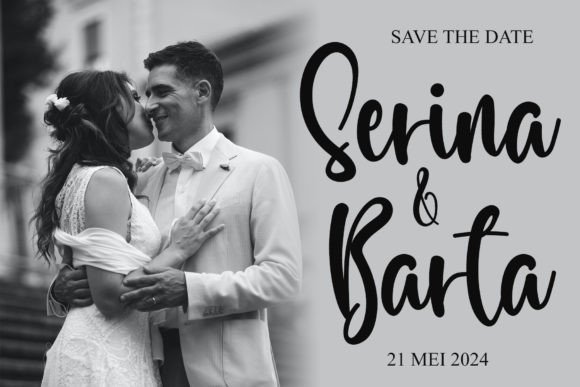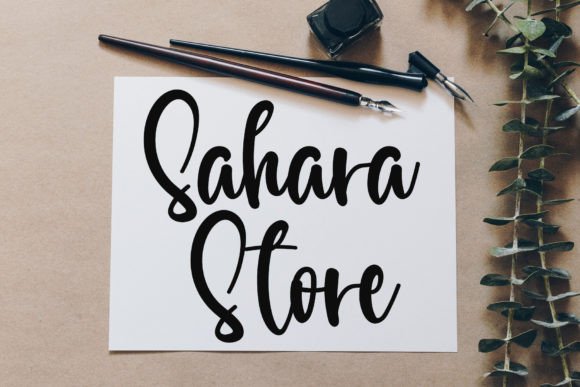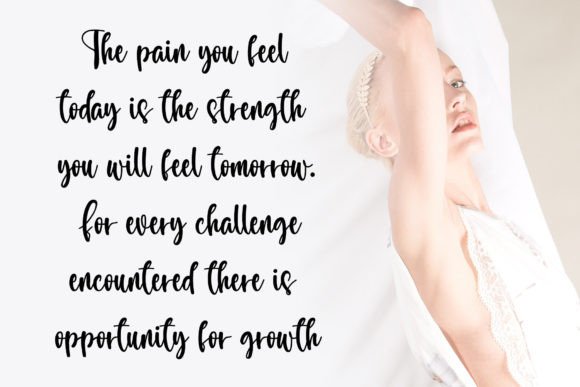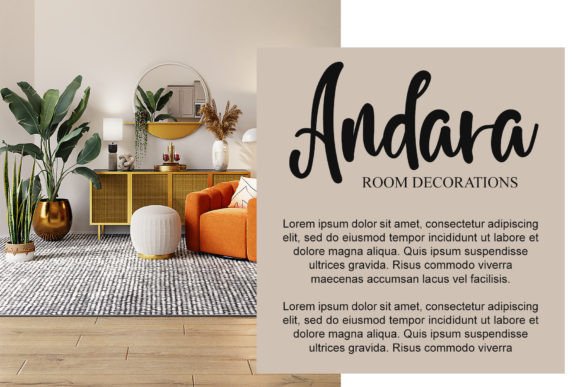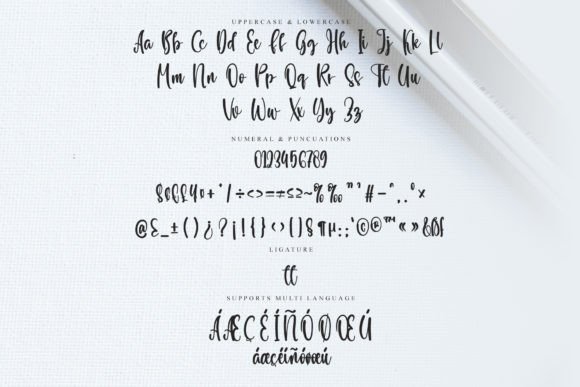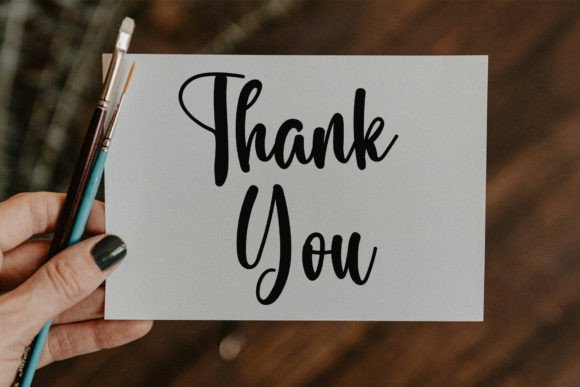
Where Creativity Meets Style: The Magic of Blending Font
Have you ever stared at a blank canvas, your mind racing with ideas, yet struggling to bring them to life? The moment when creativity strikes is always a thrill, and for designers, it’s a chance to infuse their imagination into a project. For those seeking the perfect blend of elegance and whimsy, the Blending Font is a game-changer.
This stylish and modern handwritten font is designed to add a touch of happiness to any creation, from greeting cards to headlines, branding, and packaging. With its PUA encoding, accessing the amazing glyphs and ligatures is a breeze, making it a valuable tool for designers looking to elevate their work.
Key Features of Blending Font
- Unique Blend Effect: The font features a unique blend effect, allowing for seamless transitions between different font styles, creating a cohesive and visually appealing design.
- Multi-Lingual Support: The font supports multiple languages, including Latin, Cyrillic, and Greek scripts, making it an ideal choice for international designs and publications.
- Scalable and Versatile: Blending Font is designed to be scalable, ensuring that it remains legible and visually appealing at various font sizes and resolutions.
Blending Font Review
I recently had the chance to work with the Blending Font, and I must say it’s been an interesting experience. Here’s my honest take on this font.
- Unique Blend of Styles: The Blending Font does an excellent job of combining different font styles to create a unique and visually appealing look.
- Highly Versatile: This font can be used in a variety of contexts, from headings to body text, and it adapts well to different font sizes.
- Good Readability: The font is easy to read, even at smaller sizes, which is a must for any font.
- Lack of Consistency: The blending of styles can sometimes result in inconsistent spacing and alignment, which can be distracting.
- Not Ideal for Small Text: While the font is readable at smaller sizes, it can start to lose its unique charm and become difficult to distinguish between different characters.
- Not Suitable for Technical Text: The font’s unique style can make it difficult to read technical or code-heavy text, which may require a more traditional font.
Overall, the Blending Font is a great addition to any designer’s toolkit, but it may not be the best choice for every project. With some careful consideration and use, it can add a unique touch to your designs.